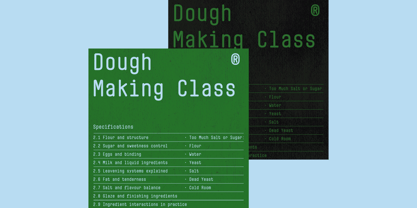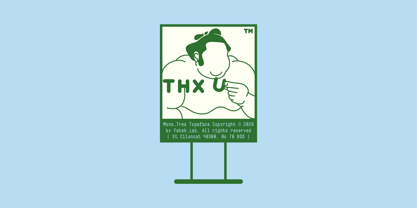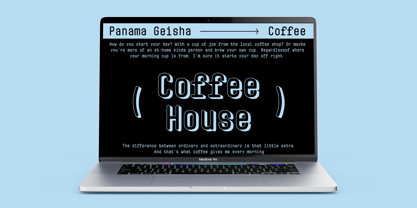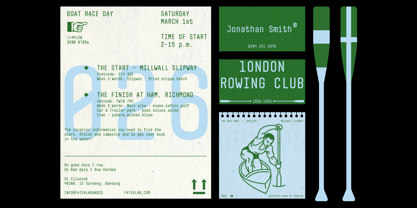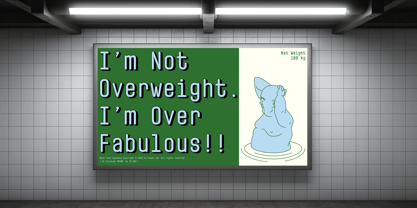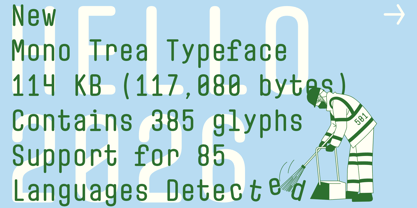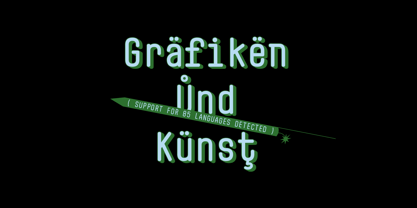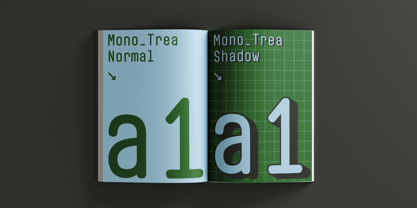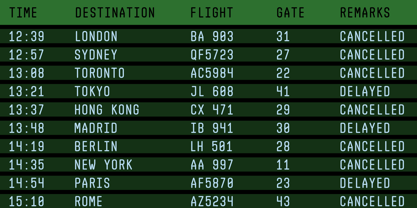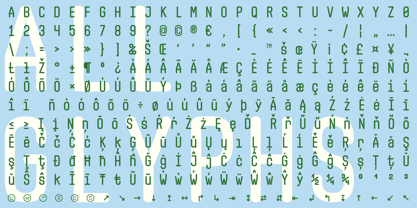
Mono Trea
by Fateh.Lab
The Mono Trea Font Family was designed by Wisnu Cipto Wibowo and published by Fateh.Lab. Mono Trea contains 2 styles and family package options. More about this family
Mono Trea is a monospaced font characterized by its consistent and dynamic style. This typeface seamlessly combines strength and softness, making it an excellent choice for modern design needs. Its bold weight provides a striking presence, suitable for logos, studio designs, posters, and social media graphics. Driven by contemporary standards, Mono Trea shines in headlines, magazine covers, and large print formats. Whether you're crafting eye-catching visuals or professional branding elements, this font ensures your content stands out with clarity and distinction.
Designers: Wisnu Cipto Wibowo
Foundry: Fateh.Lab